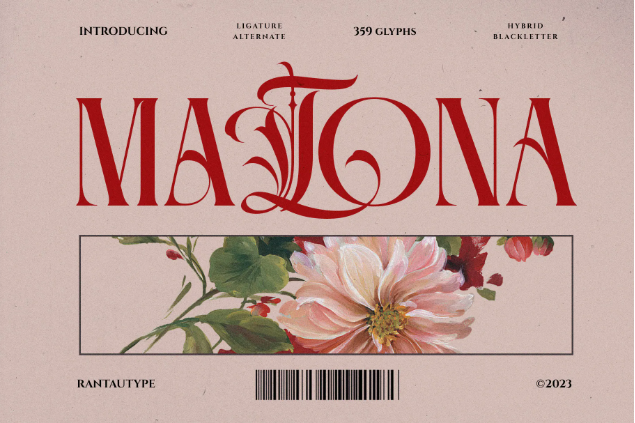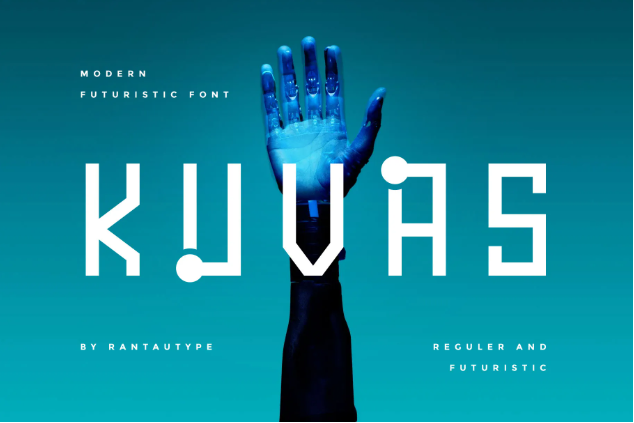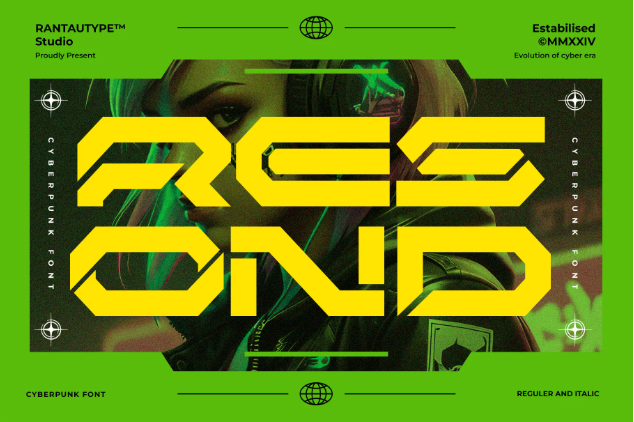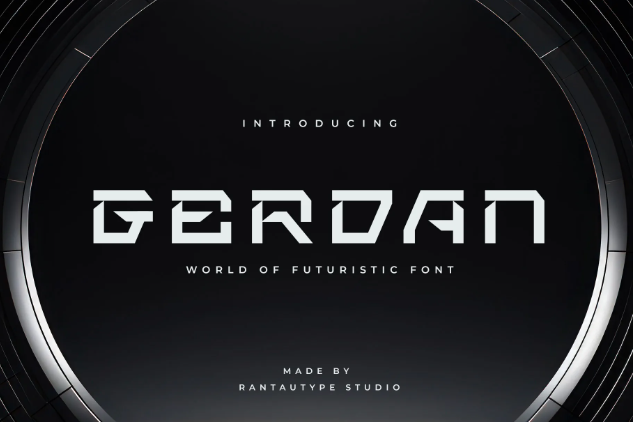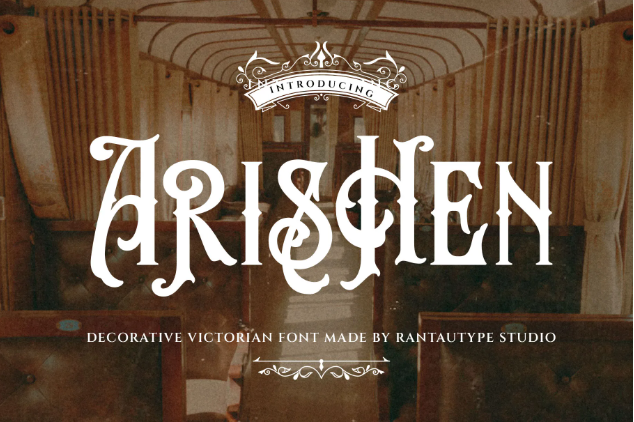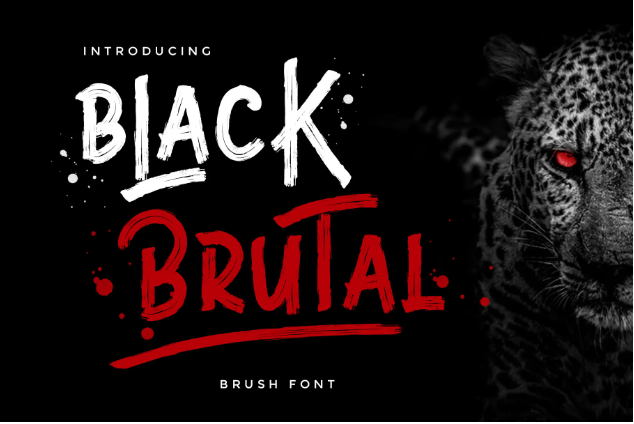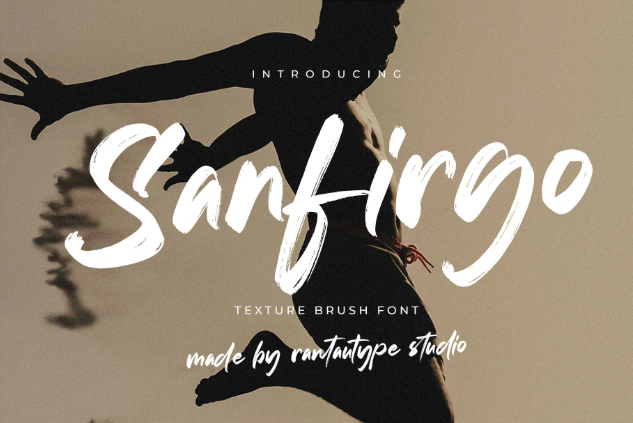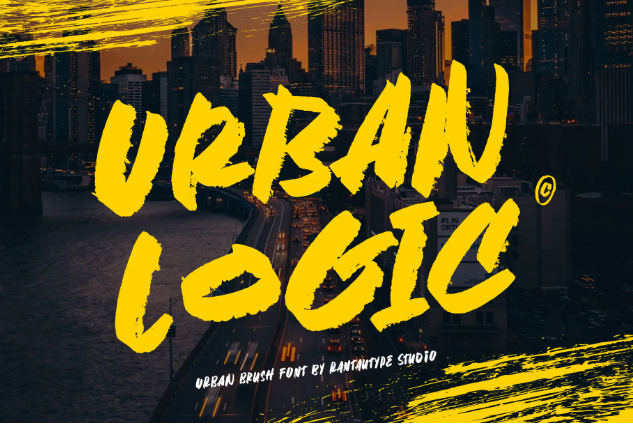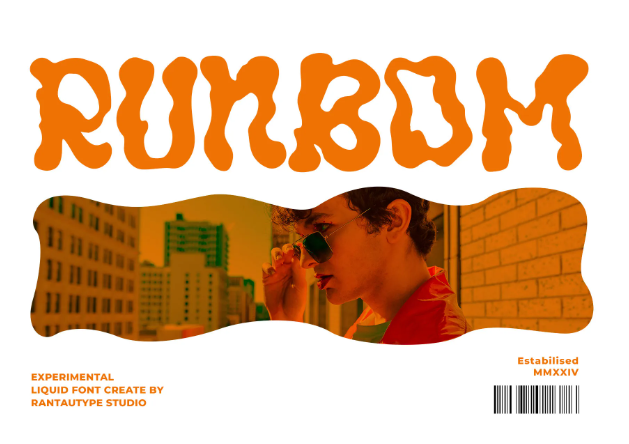
Fonts for novel covers play a crucial role in grabbing readers’ attention while setting the mood. People have a common understanding of each typeface, therefore, we try to use them to leave an instant impression.
Key Takeaways:
We’ve compiled 5 fonts within each genre to help inspire you in jumpstart your novel cover-building. Here are the best-selling fonts for you!
Mainga is an elegant serif font with beautiful flair and subtle luxury. A handwritten typeface with script-like beauty.
If you want a font with minimal flair but still retain elegance, try Kasely. This classy, luxurious font exudes lovely vibes.
When creating a more exciting romance story, Grettina can better amplify the nuance. This font has elegant, flowy strokes with a bright aura.
For a spicy romance story, Mosseta is right up that alley. It is one of the best fonts for romance novel covers with swashful, sophisticated letterforms.
Matona instantly sparks an exciting feeling in your novel cover. This hybrid font combines serif and blackletter typefaces, creating a harmonious vibe.
First on our best fonts for Sci-fi novel covers is Kuvas. A tall, rectangular font with futuristic ornaments can evoke mysterious vibes.
Resond is the futuristic font for your high-octane sci-fi novel. The font has a mecha and cyberpunk aesthetic to complete your visualization.
When you need some glitch fonts for novel covers, Vorcas is your best bet. This font uses a bold display look and pixelated details.
The Guntech futuristic font can elevate your world-building details. This font excels among sci-fi fonts with its generous glyph selection and alternates.
Gerdan adopts angular and sharp letterforms. This font turns the vintage ink cut look into a futuristic feature while using sleek strokes.
With Raptones on a horror cover, you can combine the urban mystery and haunting auras. Its brush look can represent an incompleteness in the story.
The minimalist blackletter style of Behardy balances readability with a terrifying aura. It’s better suited for a story with many unrelenting suspense.
When looking for fonts for novel covers with an apparent villain or terror, use Perodas. Its thorny letterforms always reminded the inevitable terror in the storyline.
The unique brush touch of Million Feeling creates alien vibes, mixing some artsy and subtle horror. This font can bring out an unsettling feeling naturally.
If your story combines horror in a royal setting, Arishen is perfect for that. This decorative Victorian font easily enhances immersive vibes in your novel.
When creating a daring storyline, Blak Brutal is the perfect font to represent it. Its rugged brush look combined with impulsive strokes, exudes freedom.
A typeface like Sanfirgo can better express the wild and carefree nature of your novel. The font has quick, bold strokes, displaying the unbound impression.
A marker font with a street style like Jhon Back is the perfect choice for a modern adventurous genre. This font displays a more familiar feel for your novel cover.
The grunge and raw look of Urban Logic perfectly capture a rebellious vibe in your story. This all-caps brush font is made for a title text.
When you aim for a more sophisticated adventurous font, use Ampher. It’s a script font with vintage visuals and sharp clean edges.
Muntea is a fun sans-serif font with comical ornaments. The font has great legibility for a title text while still bringing out some cute flairs.
Among our fonts for novel covers, Funy Beach has a unique touch with its retro and comical look. This font has bold letters and soft curvy edges for the fluffy look.
For a unique look on your novel cover, Runbom certainly makes the cut. Its randomized wiggly edges instantly project an unserious nature in your book.
Devoncy is the most normal look in this list, this font has a casual, handwritten, and script style. Certainly a versatile choice among the best fonts for literary novel covers.
Despite the name, Regina Light displays a bold and chubby look. It’s like the comedic concept is already ingrained in this font.
Recilda is our timeless choice for the history novel. This vintage serif font combines the modern standard, resulting in an iconic typeface.
When featuring a historical setting in your story, you can’t be wrong with using the iconic Western typography look.
Romaben has ample application when combining it with a historical story. It can combine with romance, mystery, or even who-done-it plots.
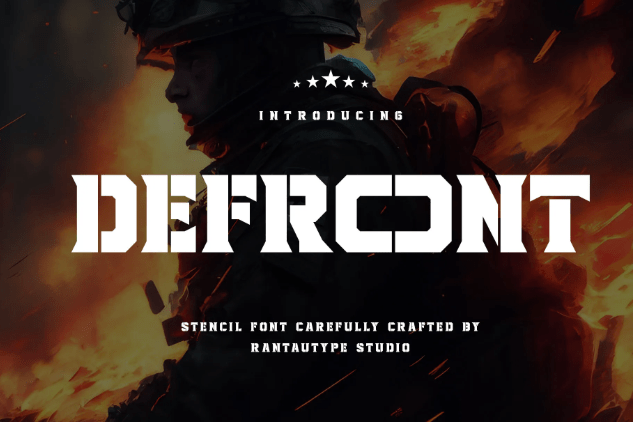
If you’re making a realistic historical plot, use Defront. It is a stencil font with a military aesthetic to help an immersive experience.
Roger Display is the vintage font you think of when talking about historical stories. This font is based on the Southwestern typeface.
Picking the correct font according to the genre is essential for making a strong first impression. A well-designed cover can attract readers and communicate the book’s essence at a glance.